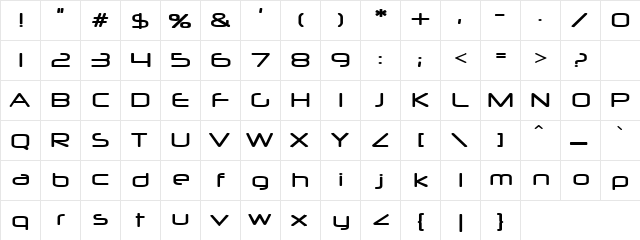
Wizzy Dool Regular
Design Context for Wizzy Dool Typeface
Wizzy Dool is a composed and adaptable typeface that performs quietly and consistently across a wide range of design contexts.